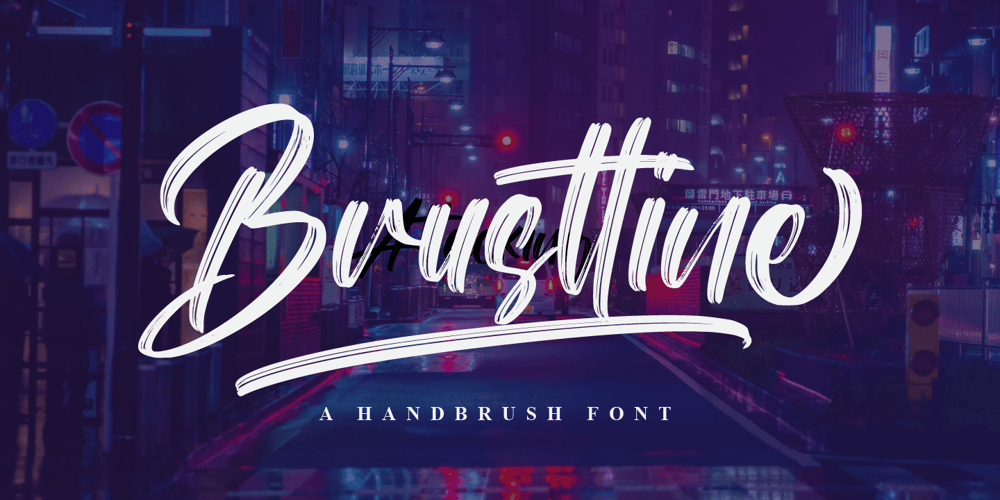
Brusttine Font Family was designed by Hayinah and published by Rockboys Studio. Brusttine contains 2 styles and family package options. Austtone is a unique brush font, perfect for use in modern design projects. This font has a slightly aggressive edge, and works well in displays for use in digital media.